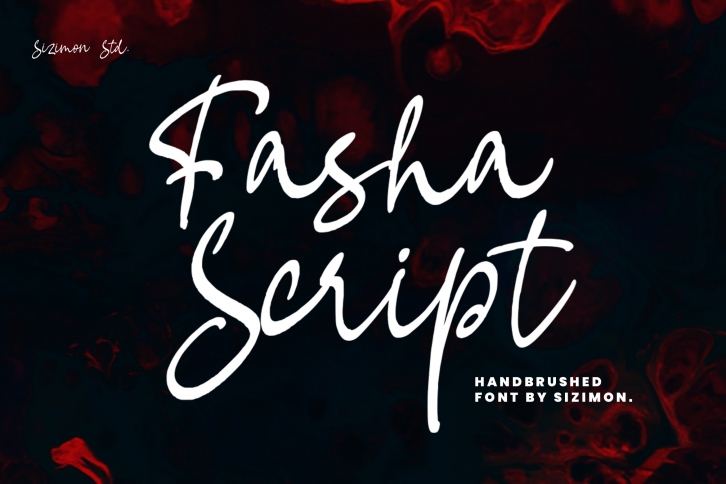
Fasha Script is a beautiful font that was designed by sizimon. It's a great choice for designers and creatives who need such a font. It was released on February 11, 2020 and the file size is 1.96 MB. Fasha Script may give a more youthful, expressive and casual look to your project. It is a very beautiful, refined, elegant, and high-quality font.